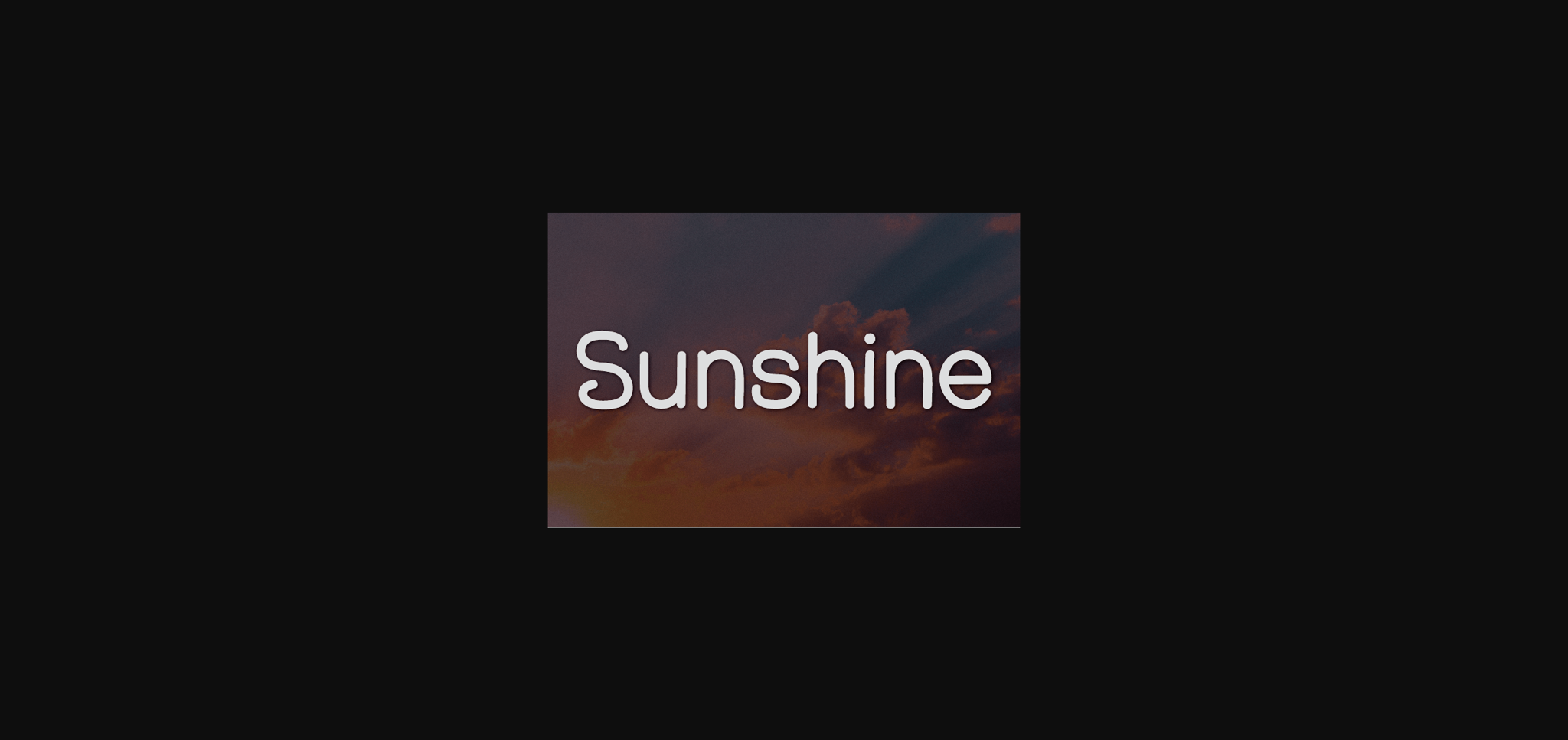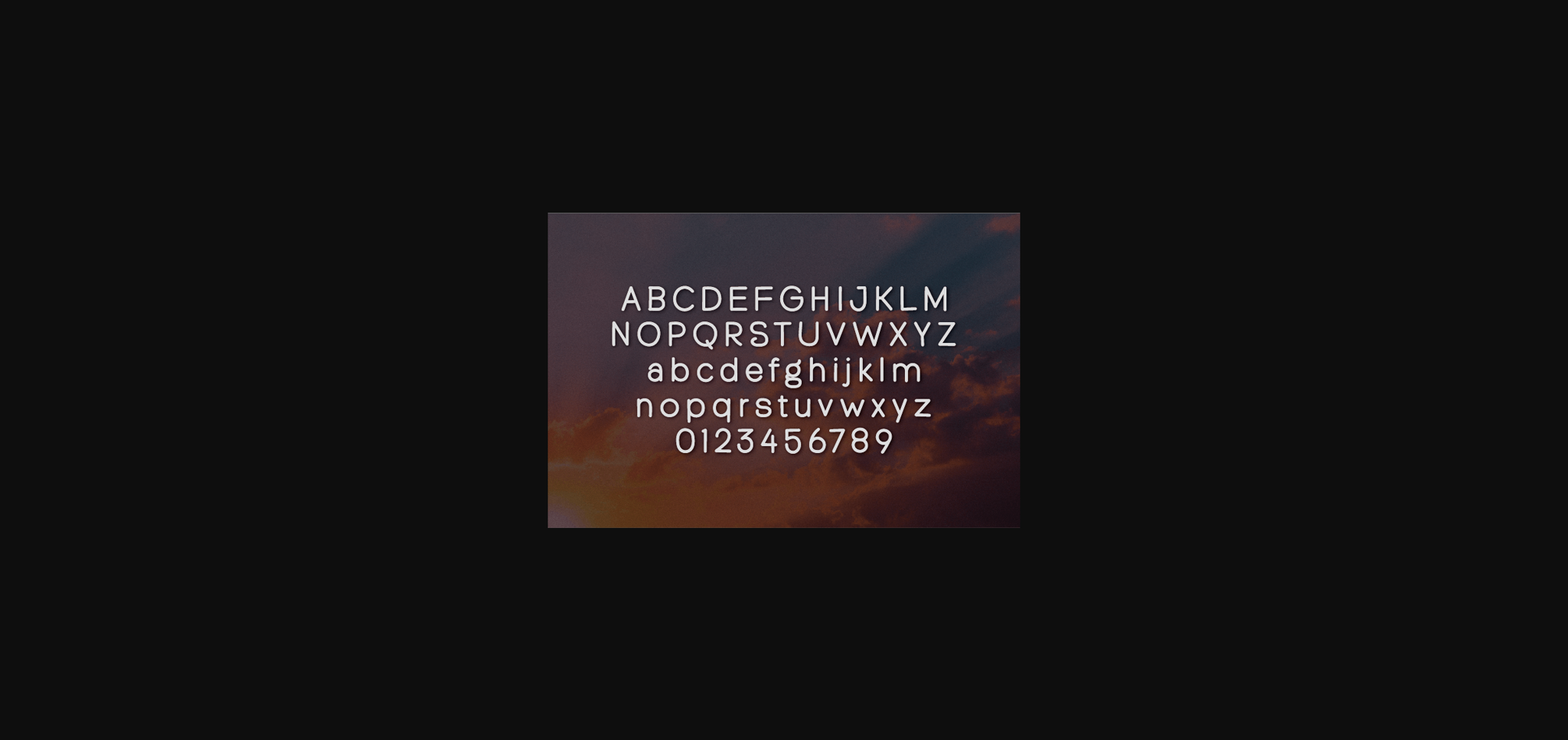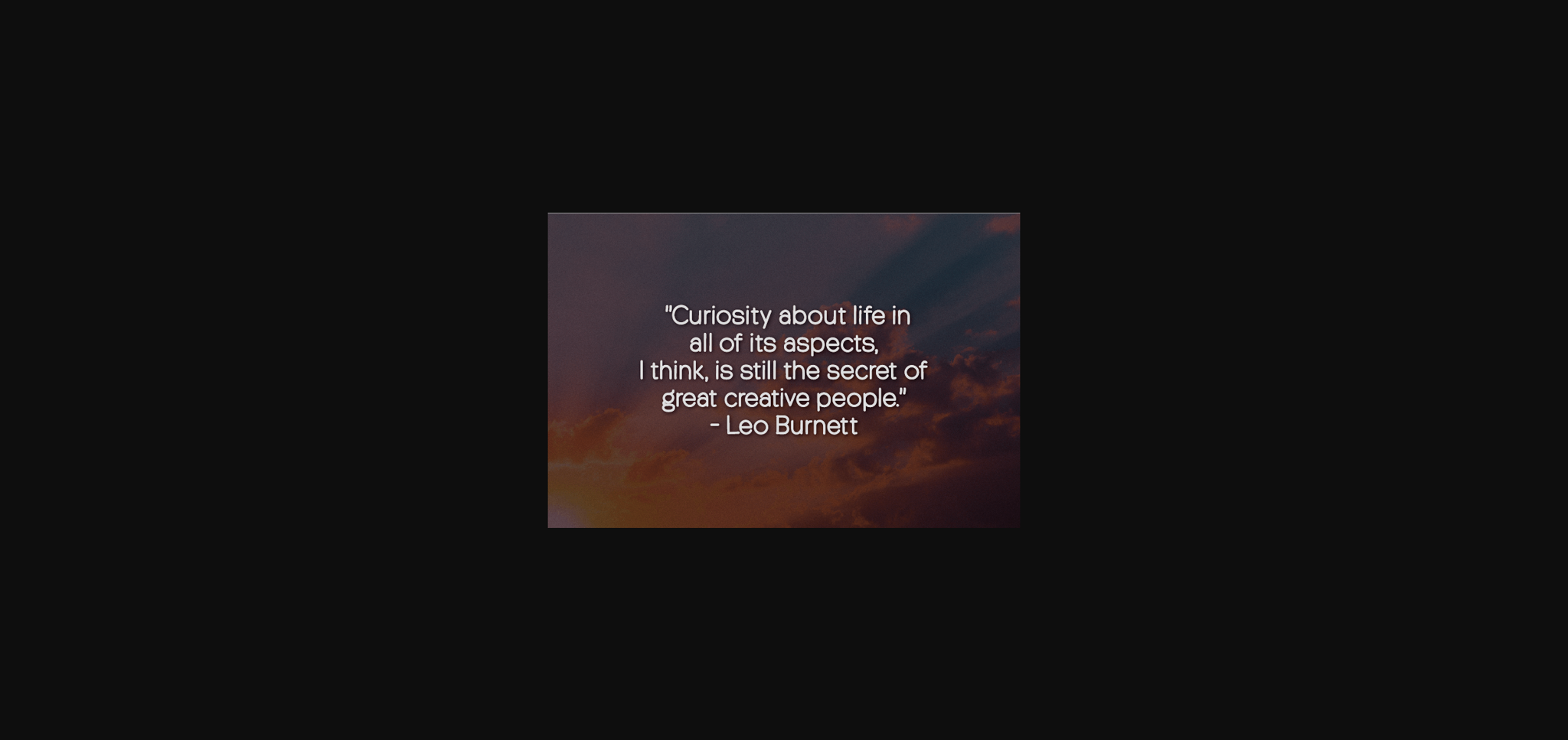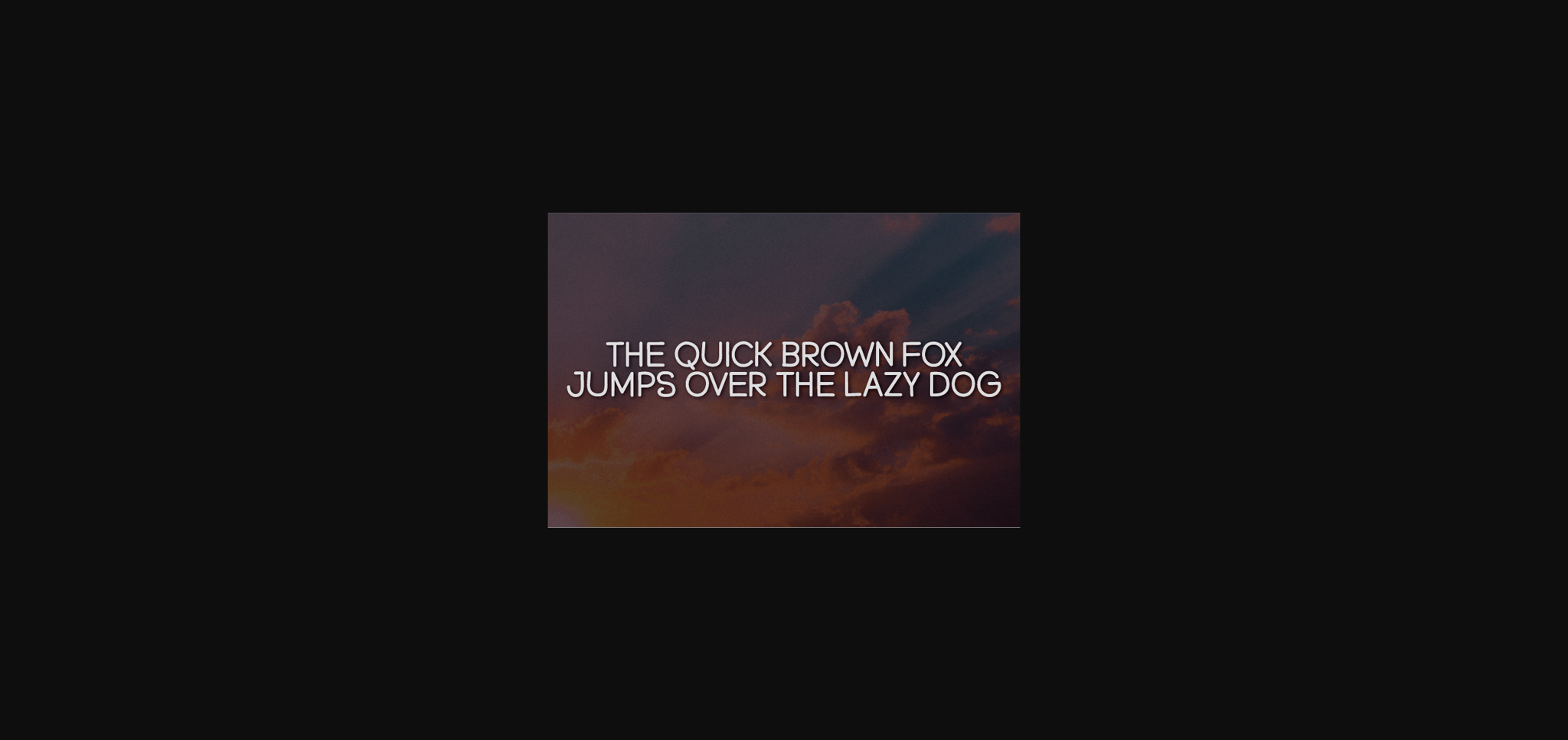
HomeSans Serif FontsSunshine Font Sans Serif Fonts Sunshine Font FacebookXPinterestWhatsApp 1 of 6 ... Sunshine Font Poster 2... Sunshine Font Poster 3... Sunshine Font Poster 4... Sunshine Font Poster 5... Sunshine Font Poster 6... About Sunshine Font Sunshine is a casual and neat sans serif font that impresses through its natural and elegant style. This typeface will enhance your craft with little effort, making your product stand out from the competition. DOWNLOAD NOW People also explored Jagakarsa Font Back for You Font Typehere Font Notebook Planner Font Blushyland Font MFC Endeavor Monogram Tomato Sauce Font Absolute Font East Octopus Font 315 0 TagsSunshine Font Previous articleProstagez FontNext articleGigranche Font LEAVE A REPLY Cancel reply Comment: Please enter your comment! Name:* Please enter your name here Email:* You have entered an incorrect email address! Please enter your email address here Website: Save my name, email, and website in this browser for the next time I comment. Personal Use Free Airmole Personal Use Free Read more about this font Black Personal Use Free Read more about this font Konexio Personal Use Free Read more about this font Hallo Betty Personal Use Free Read more about this font BLOG Fonts That Capture the Spirit of New York City New York City is more than just a place—it’s an experience, a rhythm, a visual language... Top 10 Handwritten Fonts That Elevate Your Designs How to Install and Use Fonts on Windows, macOS, and Web Projects To increase your work productivity, choose the most readable fonts.